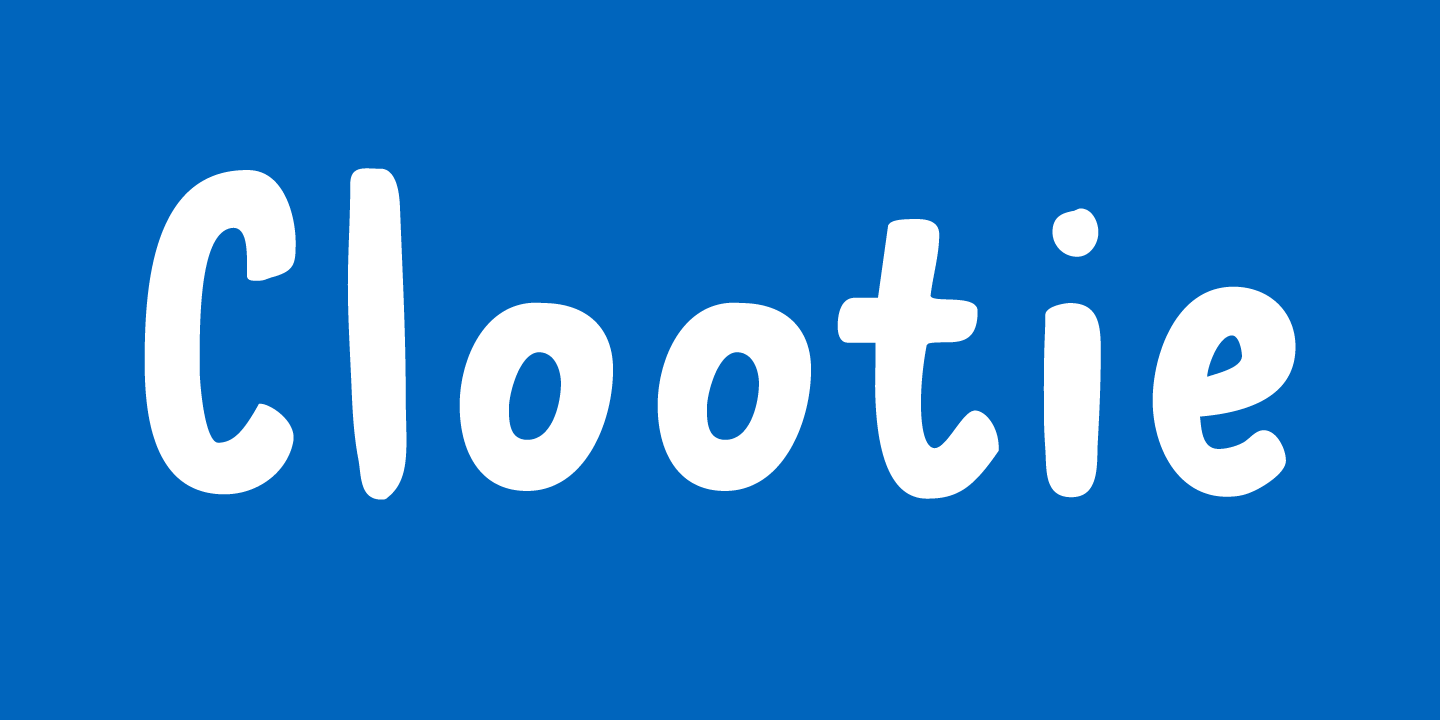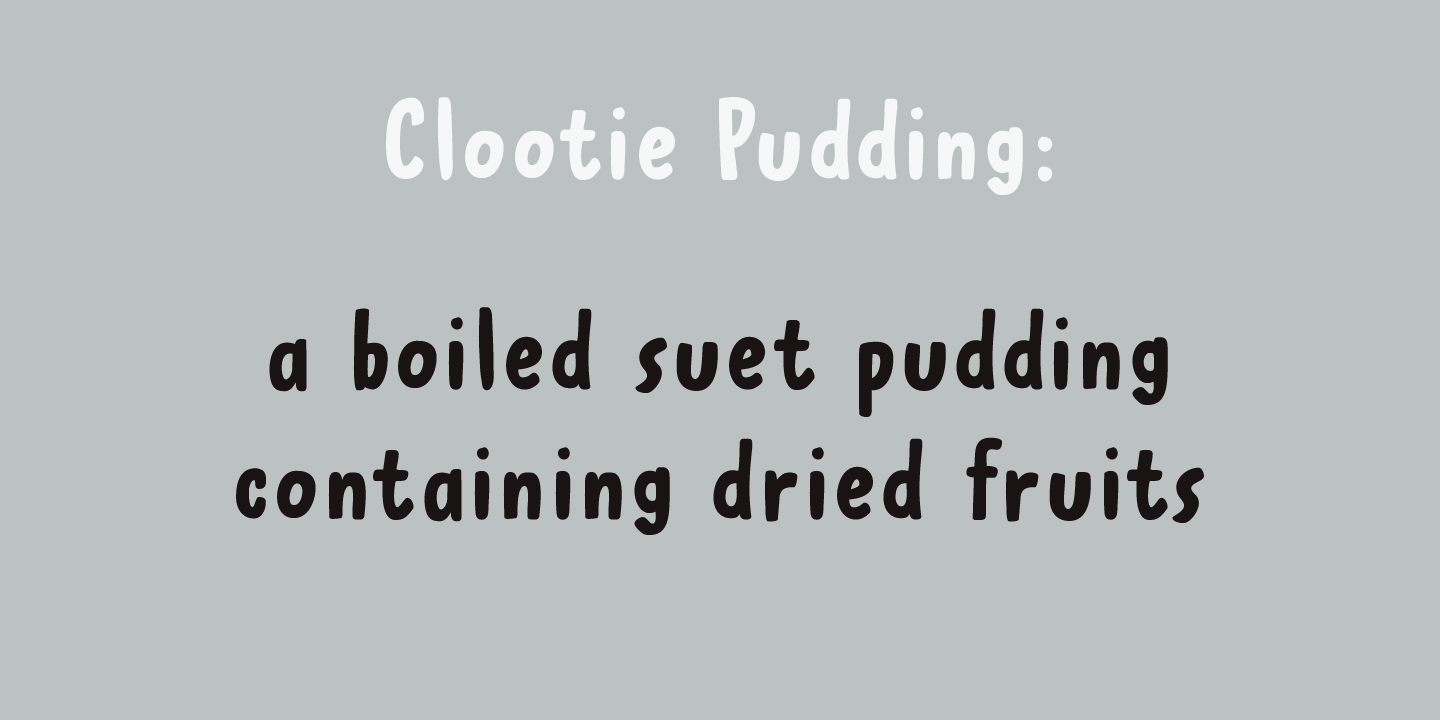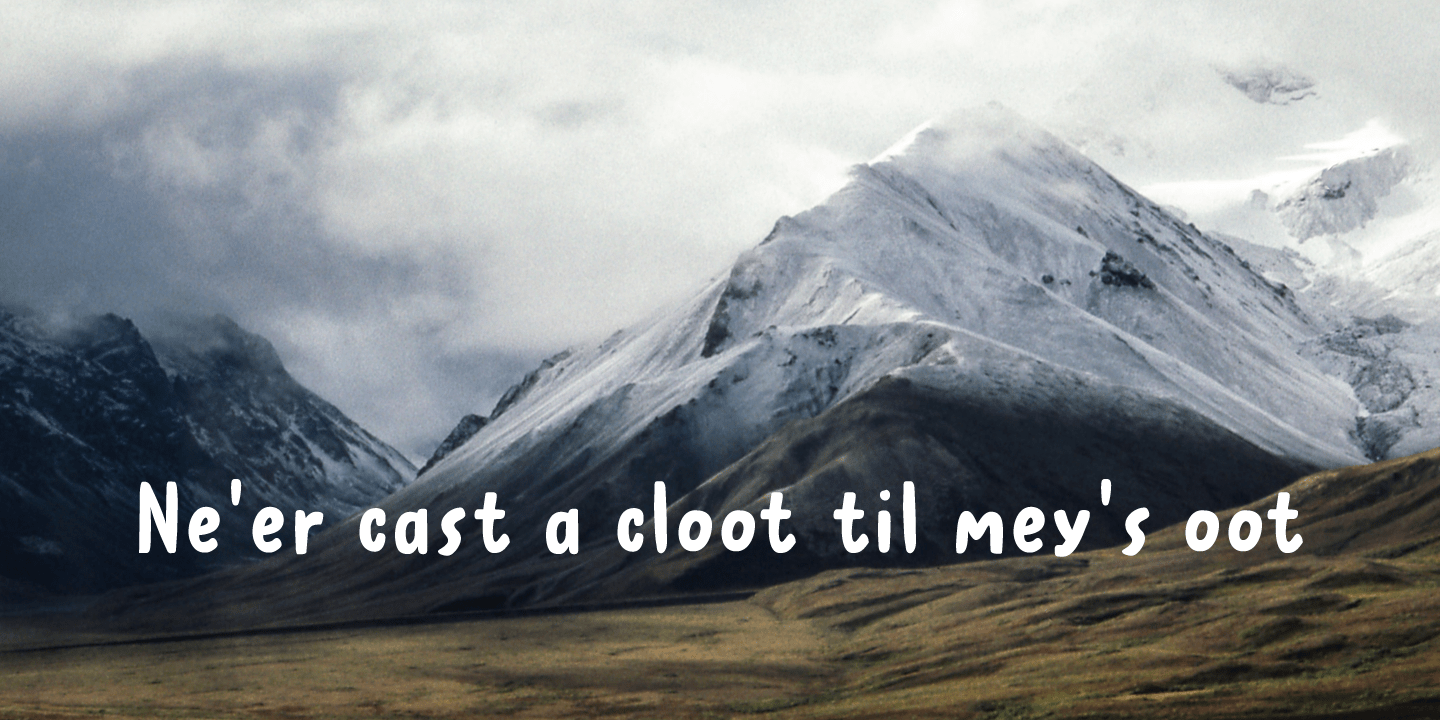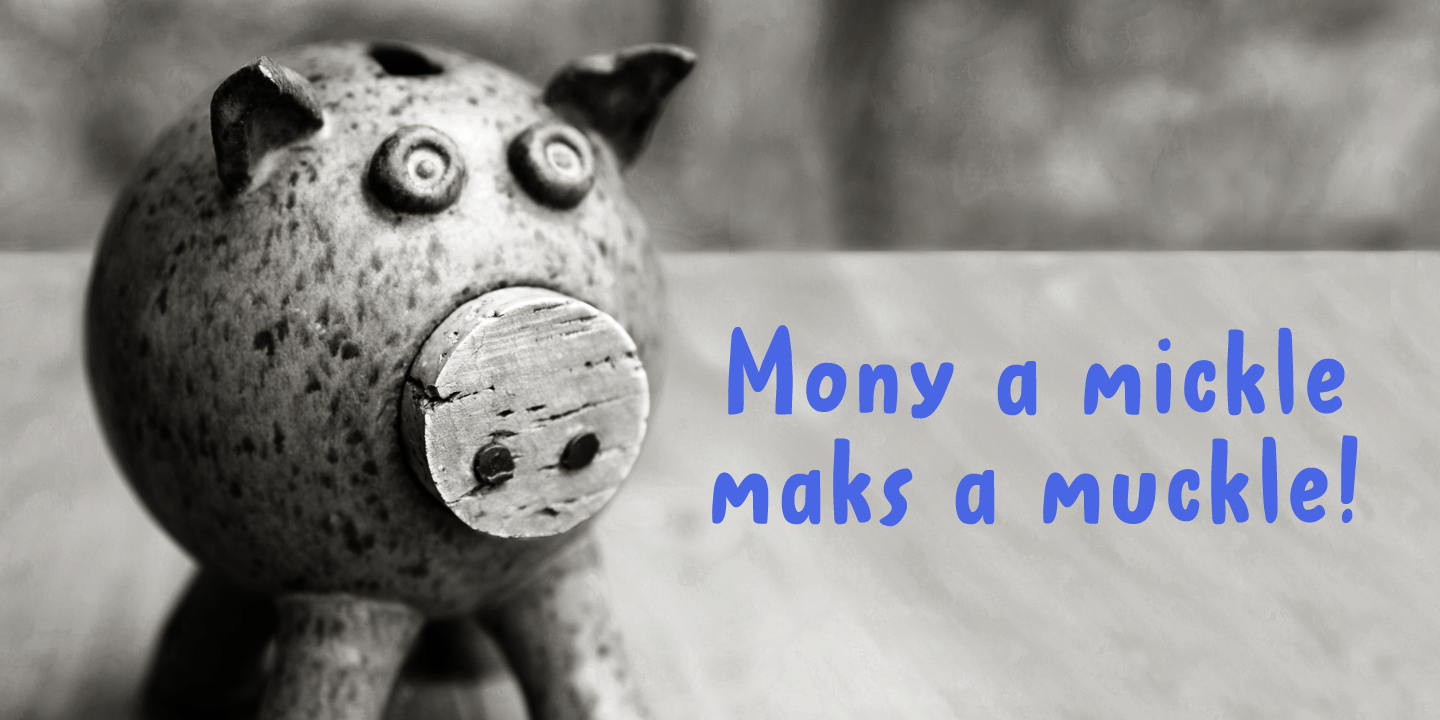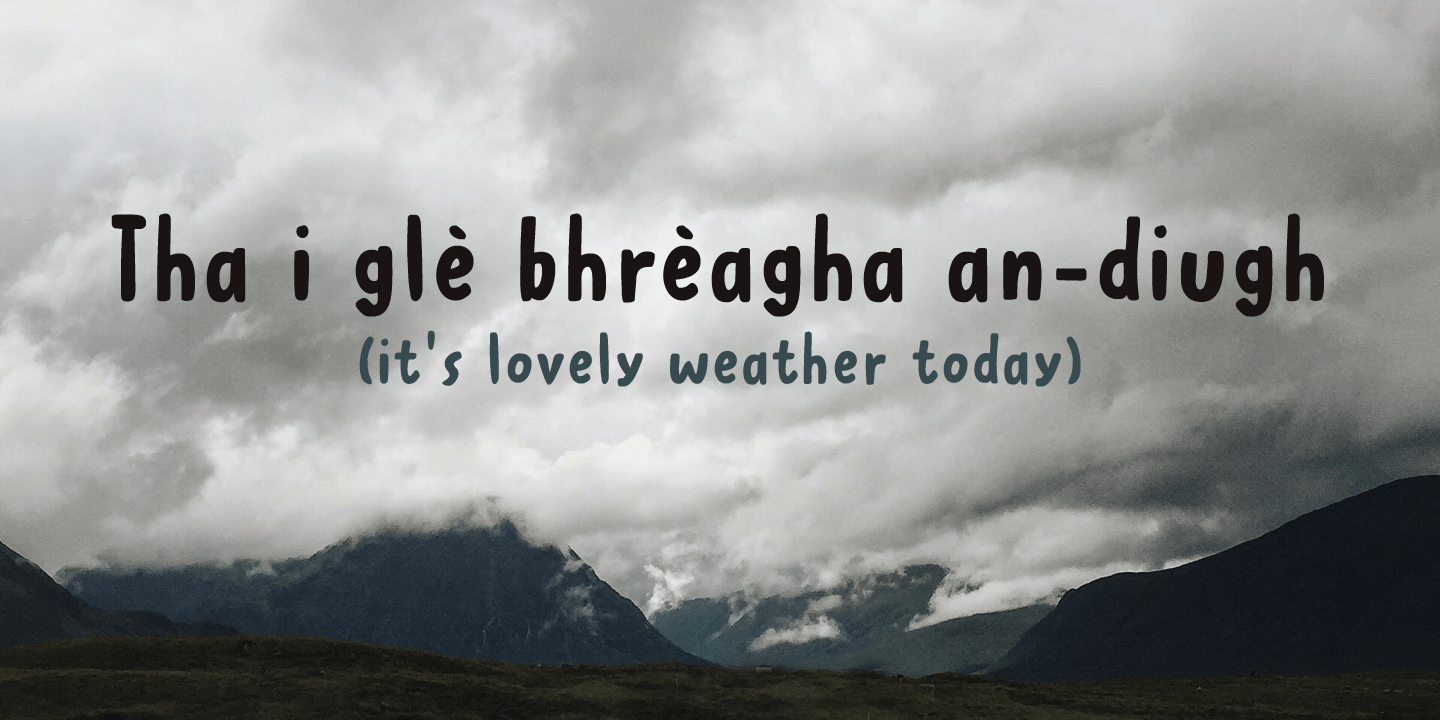
Clootie
My wife was watching a baking show in which a Scottish guy attempted to cook a clootie. A what?? A clootie??? Never heard of a clootie! Apparently it is a suet dumpling, containing dried fruits (like raisins) and boiled in a piece of cloth (clootie means ?rag? or 'strip of cloth? in Scottish).
Clootie font is a handmade bundle of happiness. It is rounded, soft and legible and will look particularly good on book covers.
And I promise you all: one day I will cook clooties to find out what they taste like!